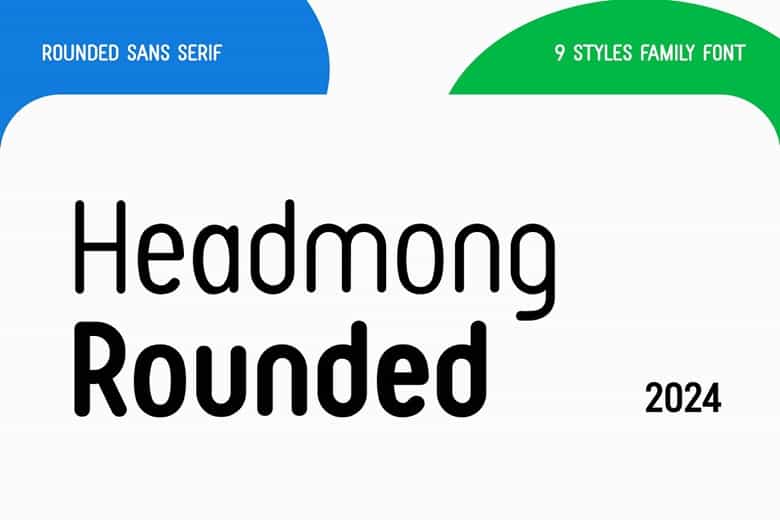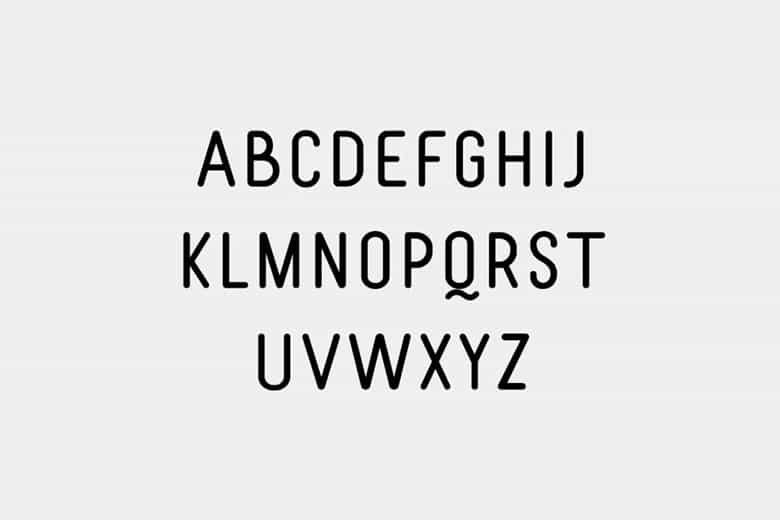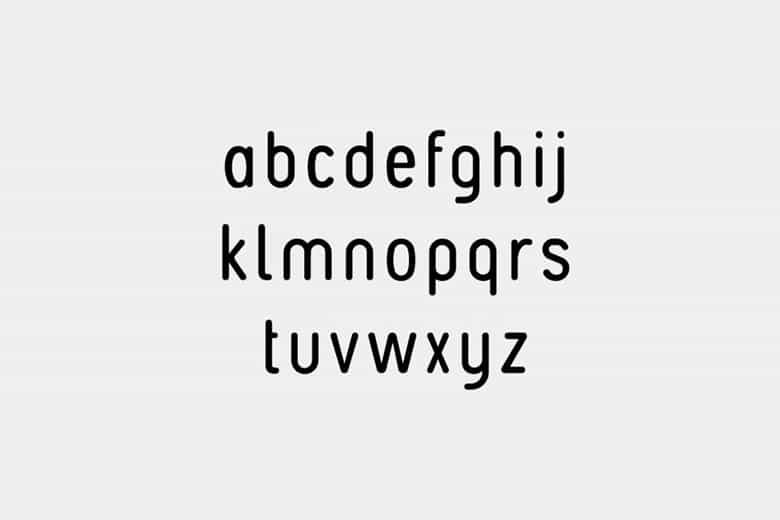
Discover Headmong Rounded Font Family, part of the Sans Serif collection—a versatile and unique font perfect for adding a personal touch to your projects. Download it for free and enjoy crafting designs with style, from invitations to social media posts. This font is available exclusively for personal use, giving you the freedom to create without limits. Unlock your creativity with Headmong Rounded Font Family today!
Headmong Rounded is a modern sans serif family. This font is perfect for any project including logo, wedding, typography quotes, magazine or book covers, website headers, branding and many more. Moreover, fashion branding or editorial design has both masculine and feminine attributes.